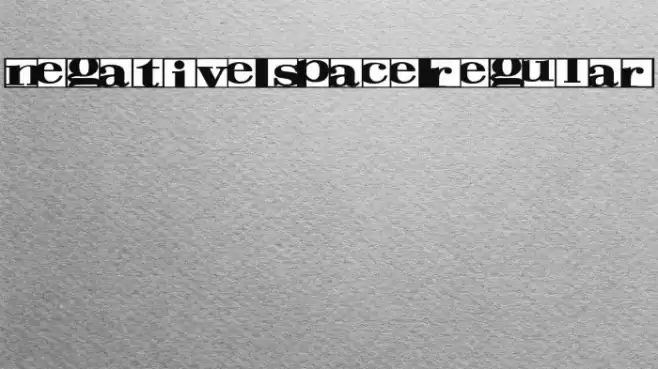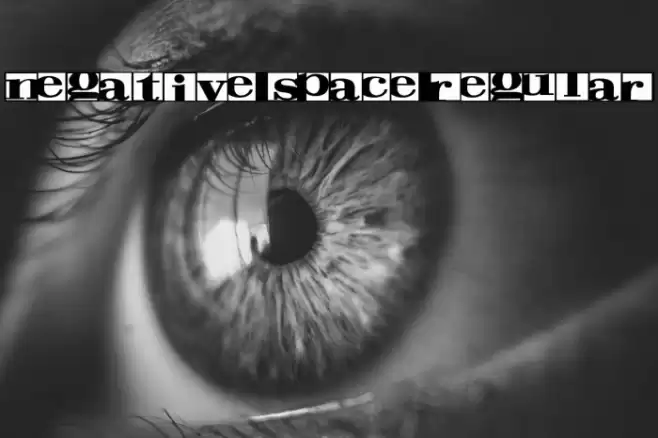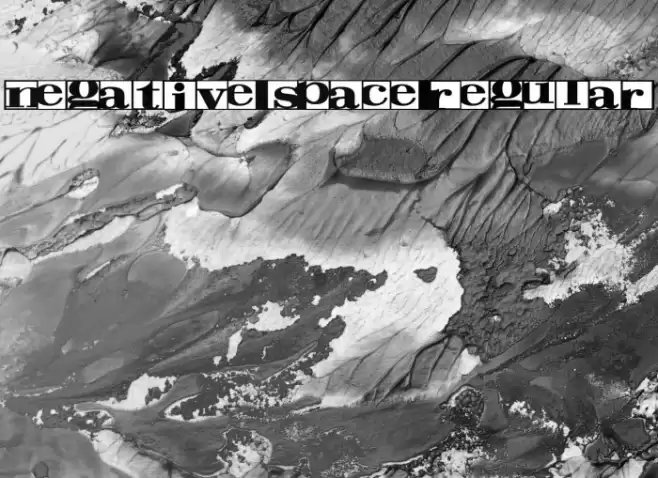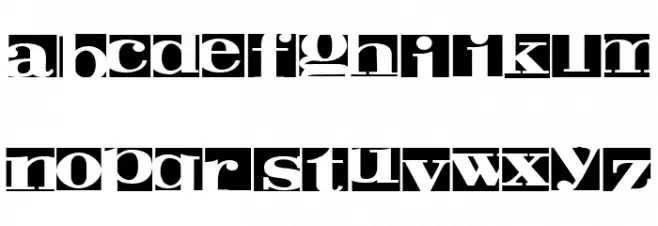
Negative Space Regular Font
Negative Space Regular Description
This font features a unique design that utilizes negative space to create a striking visual effect. Each character is crafted with bold, geometric shapes that are partially filled, leaving intriguing gaps that form the letters. The design is modern and artistic, making it stand out in any context. The uppercase and lowercase letters maintain a consistent style, with sharp angles and clean lines. The numbers and special characters follow the same aesthetic, ensuring uniformity across all glyphs. This font is perfect for projects that require a bold statement and a contemporary look.
A bold, geometric font utilizing negative space for a modern, artistic effect from Decorative fonts.
- Proposed Projects: Ideal for branding, posters, album covers, and any design work that aims to make a bold statement.